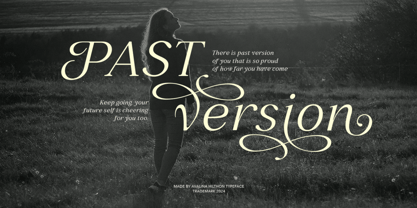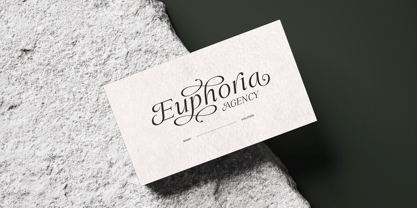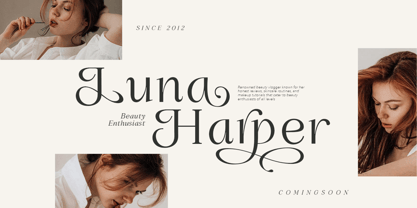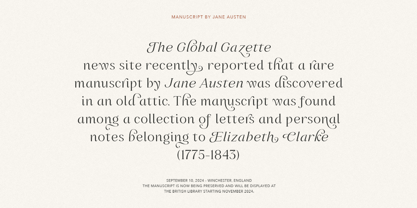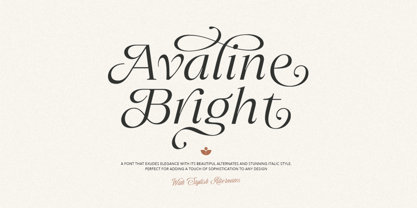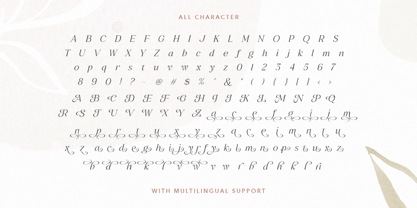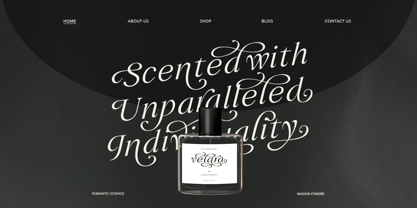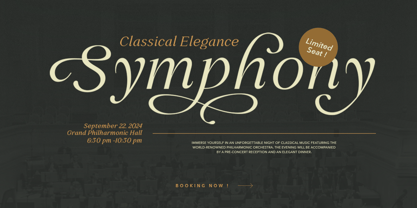
Avaline Bright
The Avaline Bright Font Family was designed by Sarid Ezra, Dzikrul Aulia and published by Bale Type. Avaline Bright contains 2 styles and family package options. More about this family
Avaline Bright is a luxury and modern italic font based from serif. With stylish alternates that you can use to make your design or logo looks elegant and sophisticated. You can use this font for any purpose, such as a wedding invitations, logotype, or quote post. This font also support multilingual.